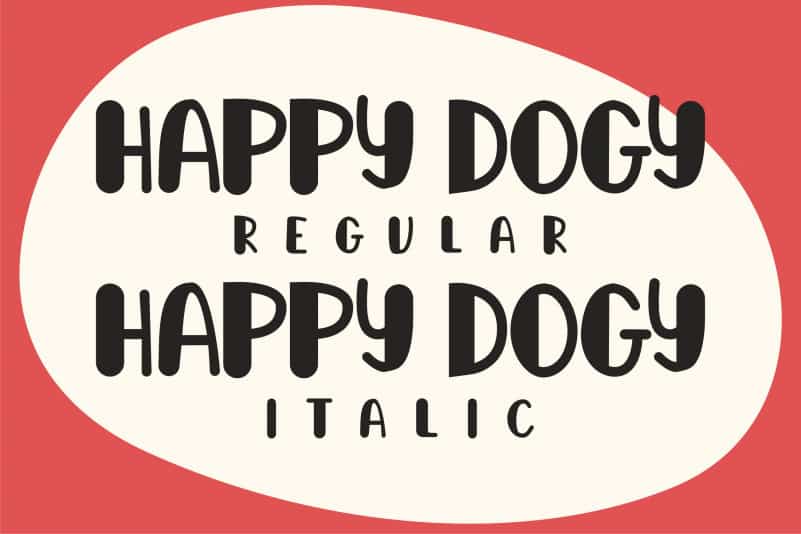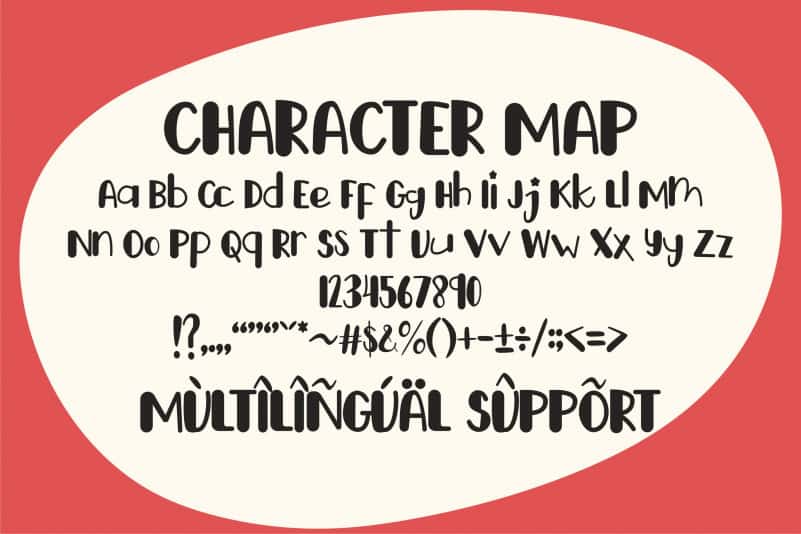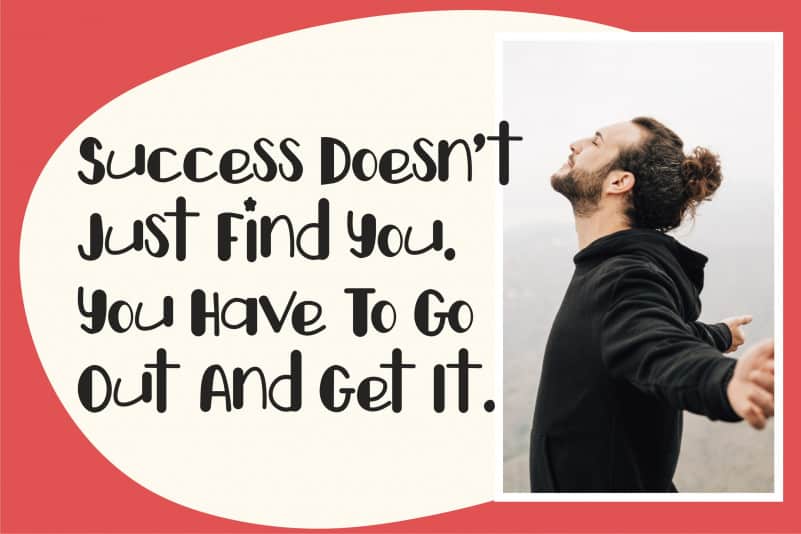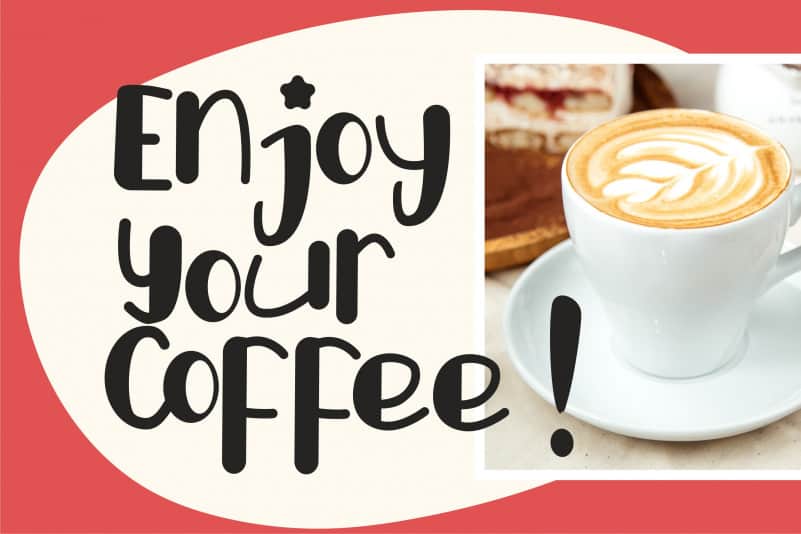
Happy Dogy Display Font
Happy Dogy Display Font is a quirky display font, featuring a unique style. Fall in love with its playful look and use it to bring any DIY project to life!